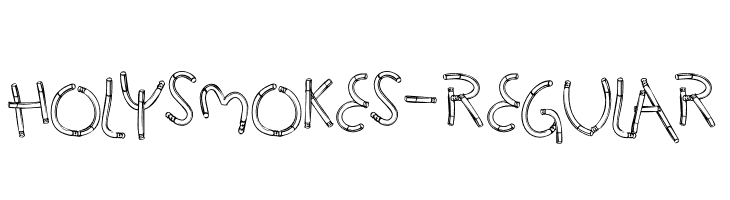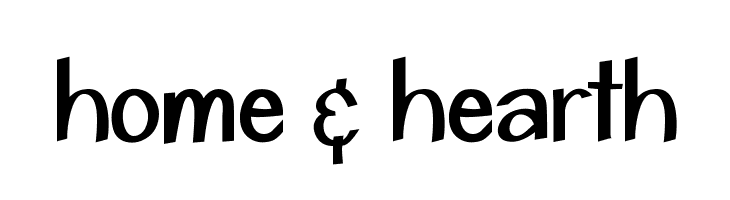
• HolySmokes-Regular schriftart
A whimsical, pipe-themed decorative font with playful character designs.
• HOLYSWEET schriftart
( Fonts by Densu Creative )
A playful, bold font with rounded, bubbly characters ideal for fun designs.
• Holzschnitt-Initialen schriftart
( Fonts by Paul Lloyd )
A decorative, woodcut-style font with intricate detailing and a vintage aesthetic.
• HolzSchnitte schriftart
• Homade schriftart
( Fonts by PiPi Creative )
Playful handwritten script font.
• Homade McRacken schriftart
( 7NTypes - Situjuh Nazara - 7ntypes.com )
A playful, handwritten font with smooth, rounded edges and a casual flow.
• Homade McRacken Slant schriftart
( 7NTypes - Situjuh Nazara - 7ntypes.com )
A casual, handwritten font with a slight slant and smooth, rounded characters.
• Home schriftart
A lively, flowing script font with elegant loops and cursive strokes.
• Home schriftart
( HackFonts - hackfonts.blogspot.com.co/ )
A playful, bold font with rounded edges and a hand-drawn feel.
• Home & Hearth schriftart
( Fonts by Heather T. - oohlalaartsy.blogspot.com )
A playful, handwritten-style font with bold, rounded strokes.